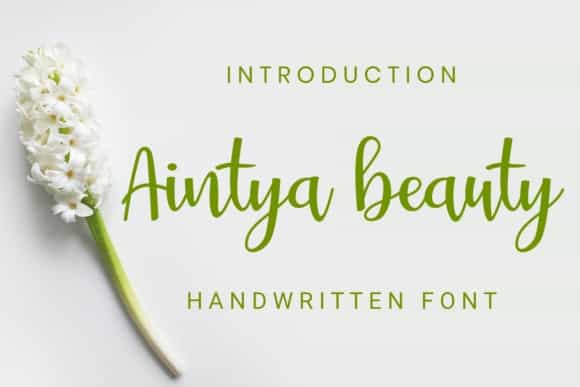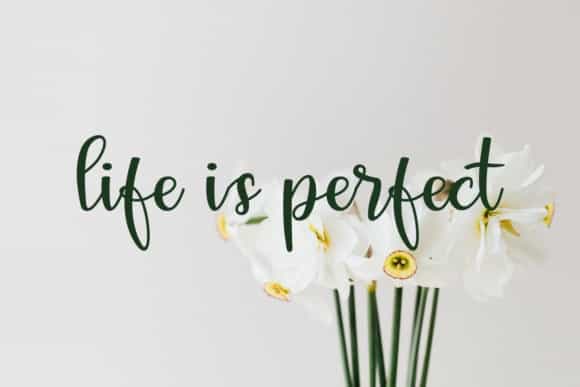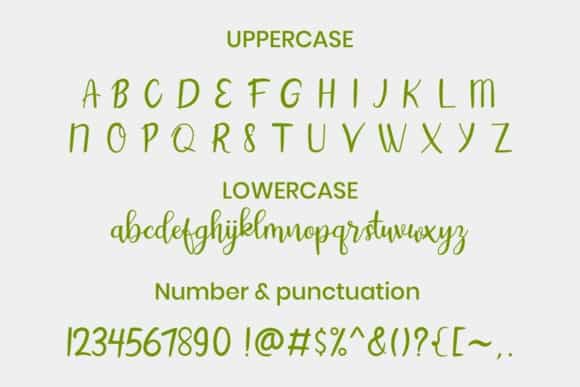
Aintya Beauty is an elegant and welcoming written script handwriting font. Its casual style is suitable for many different designs. This font is a great option for your branding, logos wedding invitations, gorgeous stationary art, striking social media posts and adorable greeting cards.